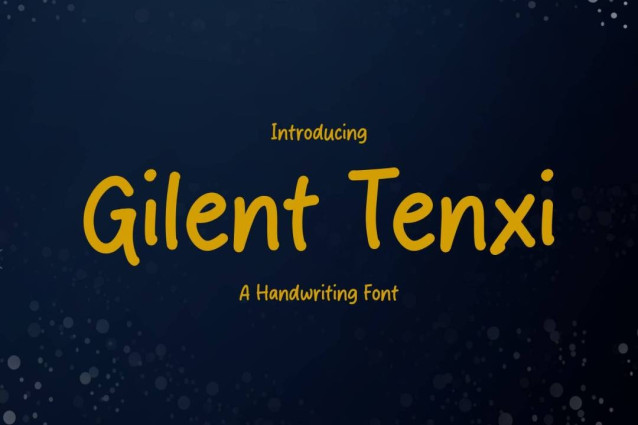
Gilent Tenxi Handwriting Font
Gilent Tenxi Handwriting Font is a simple and friendly handwritten font. Its natural and unique style makes it incredibly fitting to a large pool of designs. The only limit is your imagination!